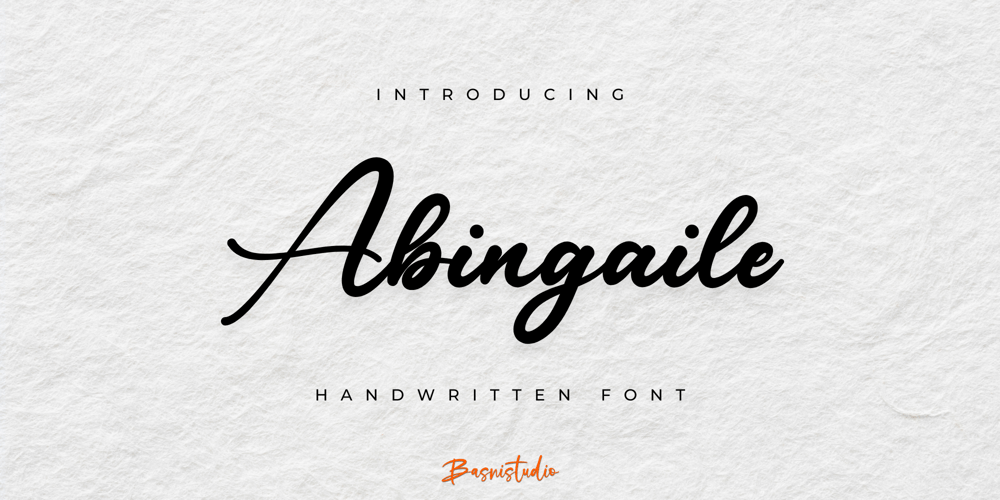
Abingaile Font Family was designed by Bery Arisandi and published by Basnistudio. Abingaile contains 1 styles and family package options. Introducing Abingaile Handwritten Font , made with Naturaly & precision, perfect for branding, websites, and editorial designs. Includes all Characters letters, multilingual support, punctuation, binding. everything can be easily accessed using software that supports OpenType. What’s include: Abingaile Handwritten Font Ligatures Multilingual Support ( Support for 90 languages ) Thank You Very Much